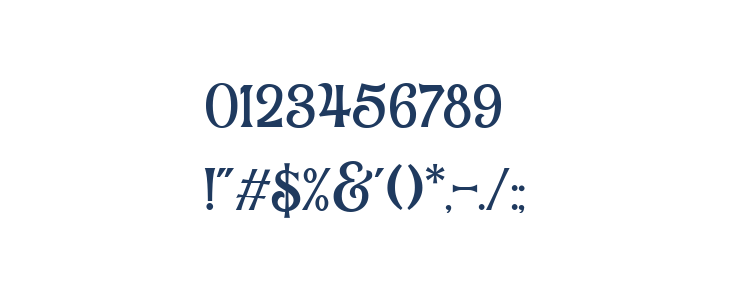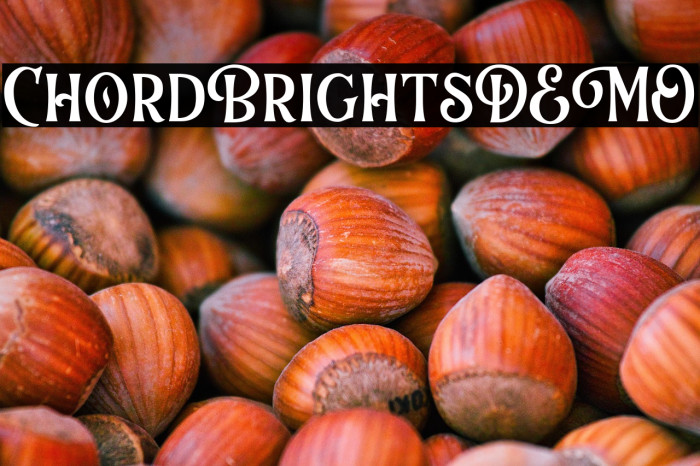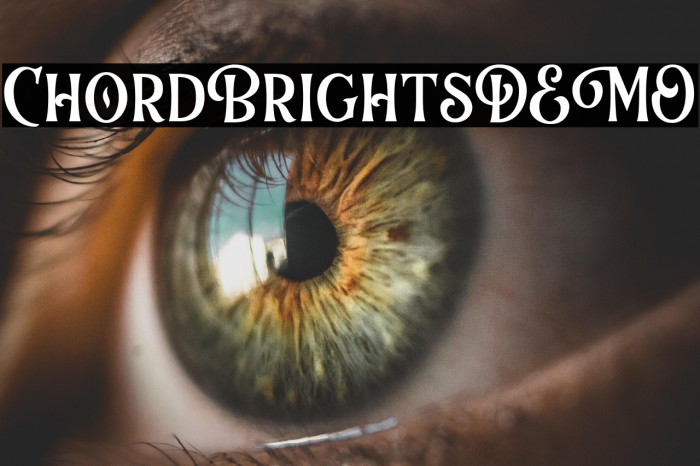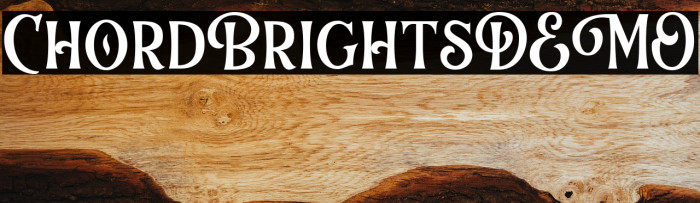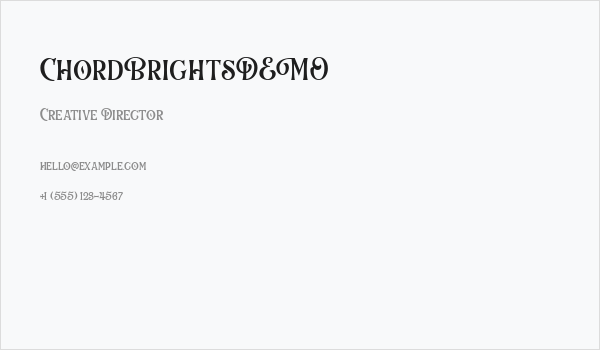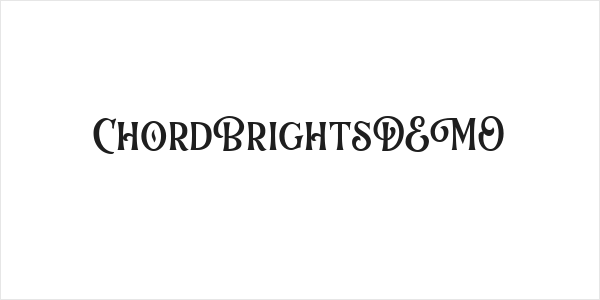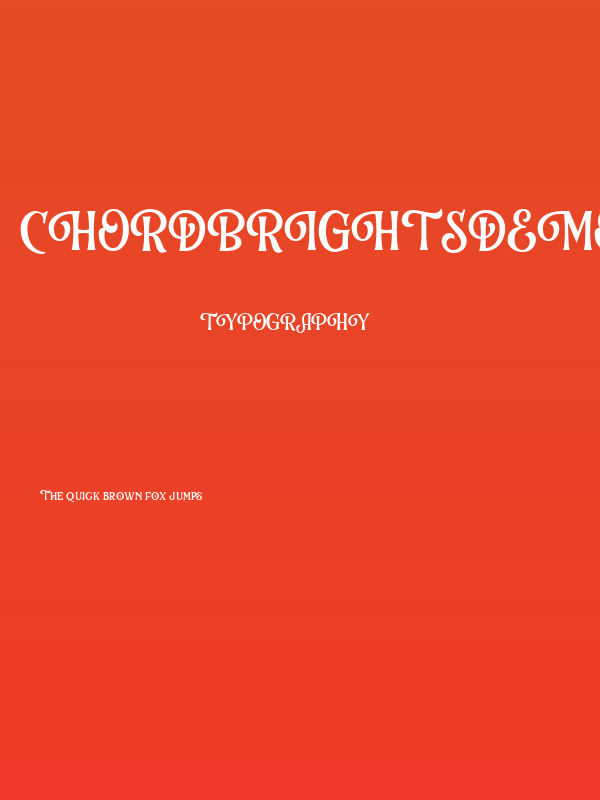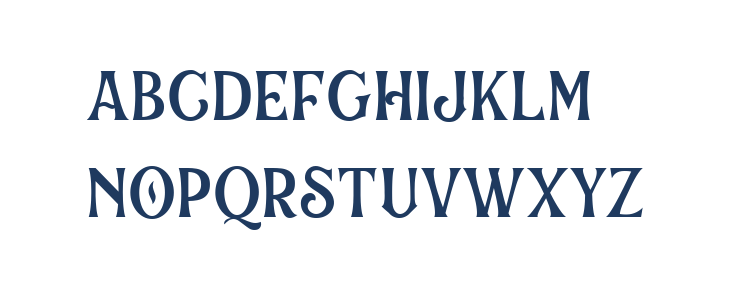
ChordBrightsDEMO Font
ChordBrightsDEMO Description
This font features a unique blend of decorative and classic elements, characterized by its bold and artistic flair. The uppercase letters exhibit a playful yet sophisticated design, with intricate curves and flourishes that add a touch of elegance. The lowercase letters maintain a consistent style, ensuring readability while preserving the font's artistic nature. Numbers are bold and clear, making them suitable for various applications. The special characters are crafted with the same attention to detail, enhancing the font's overall aesthetic. This font is perfect for projects that require a distinctive and eye-catching typeface.
Proposed ProjectsIdeal for branding, invitations, posters, and any project that requires a standout, artistic typeface.